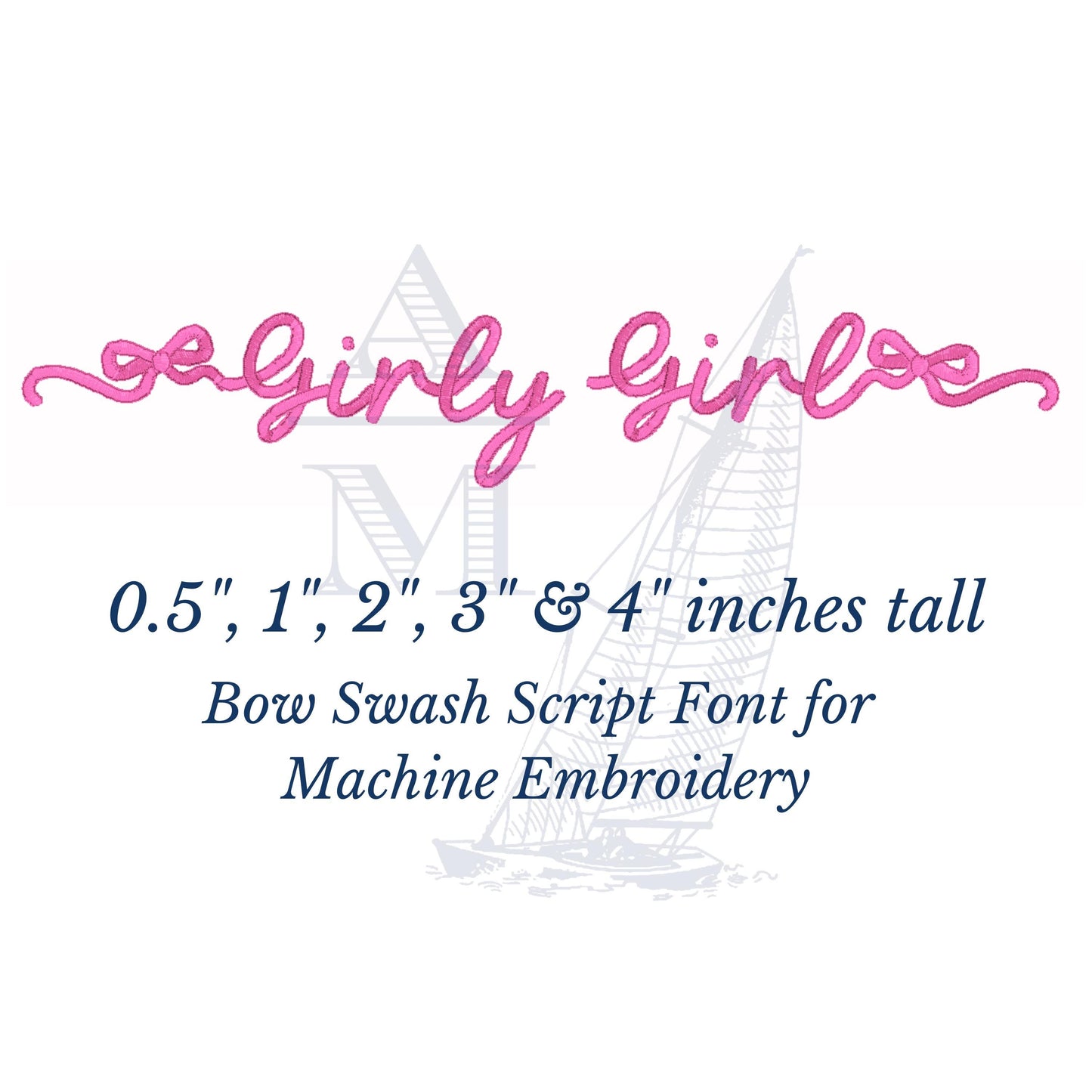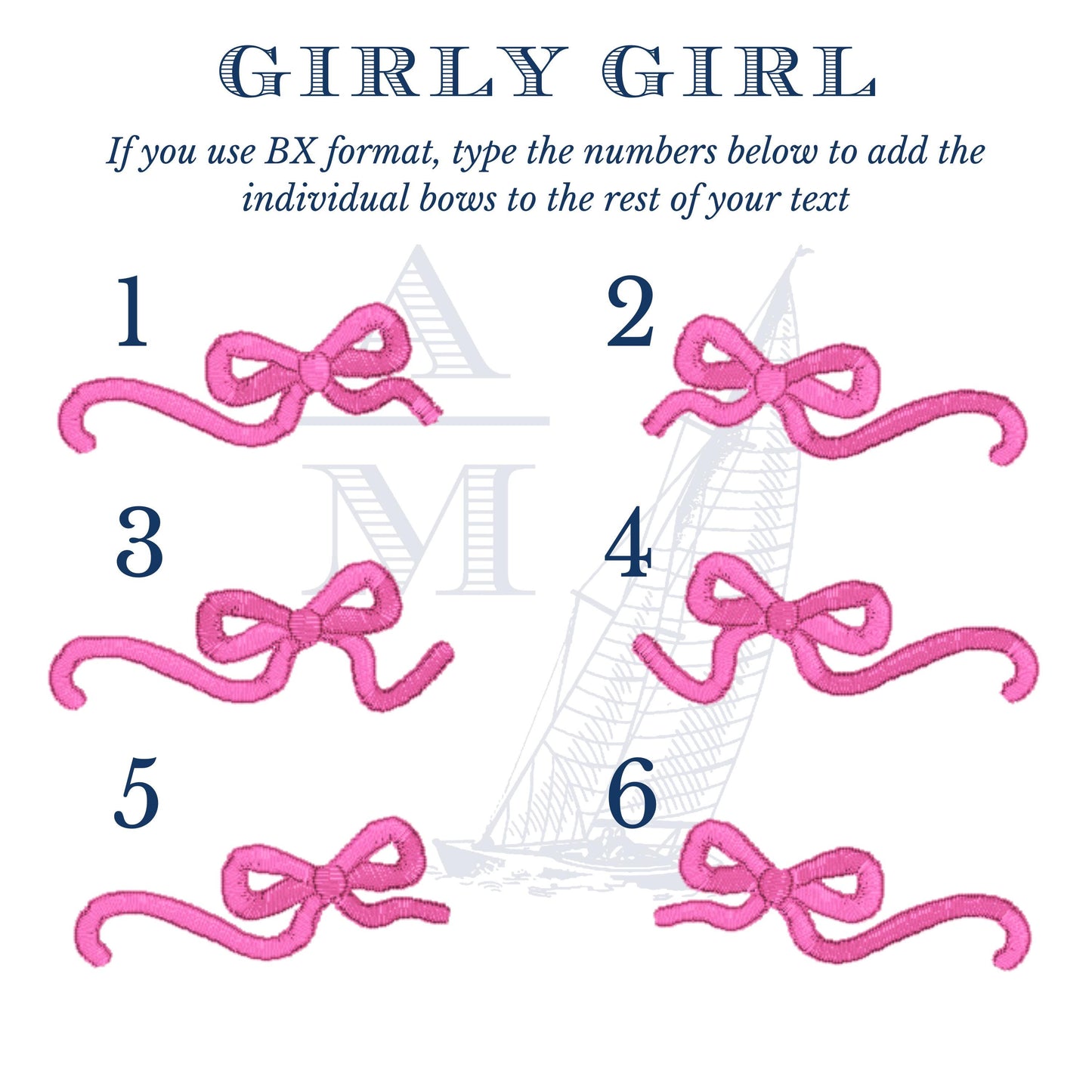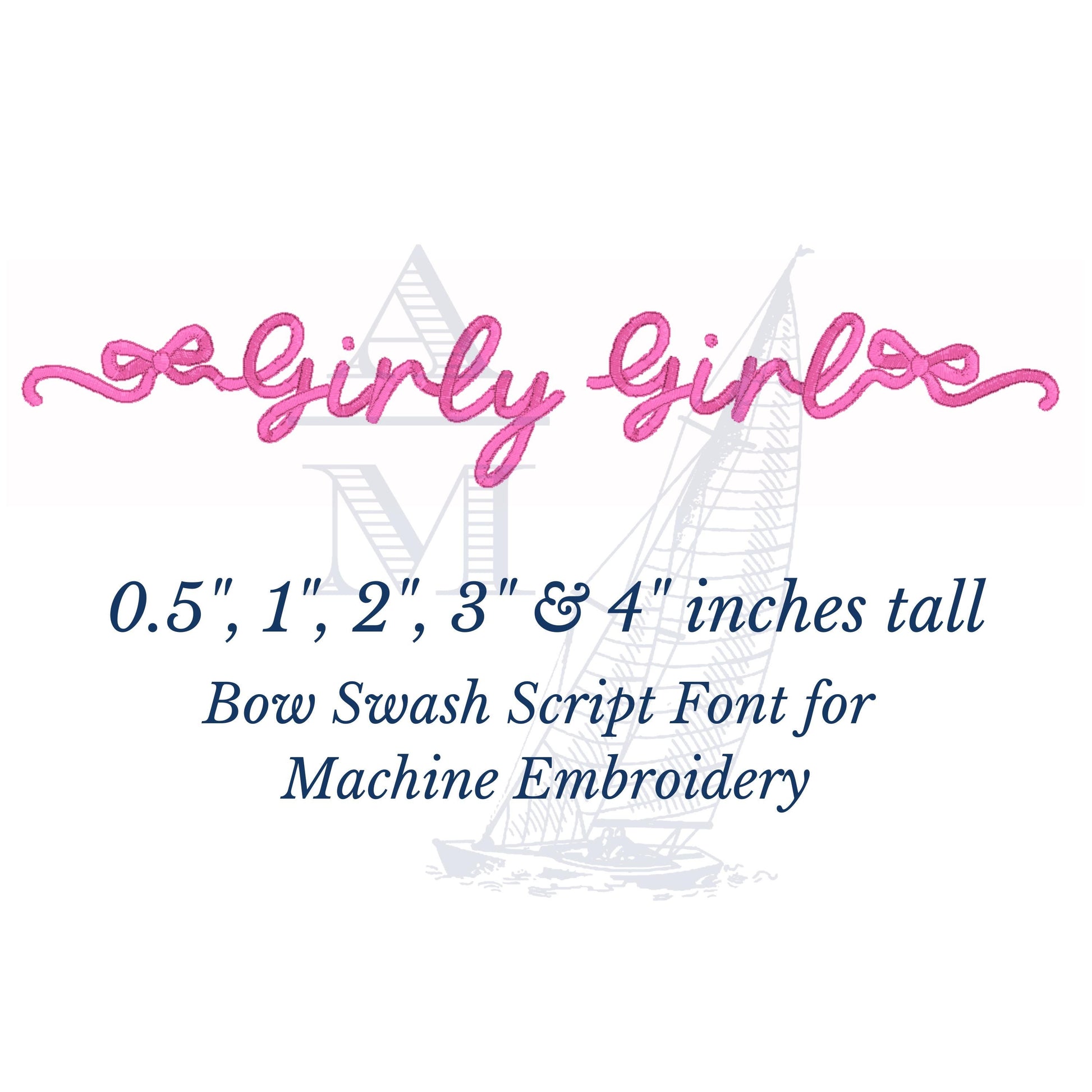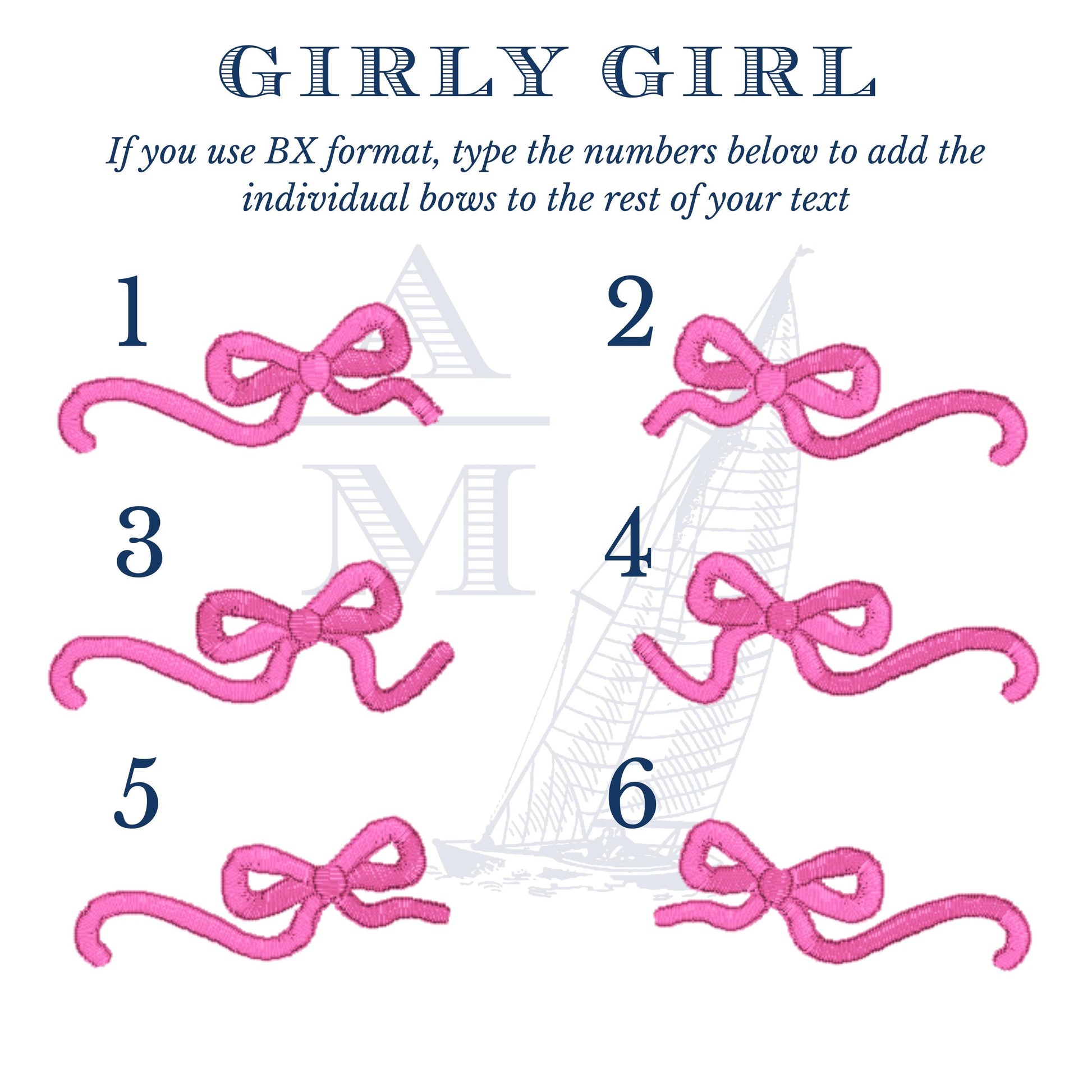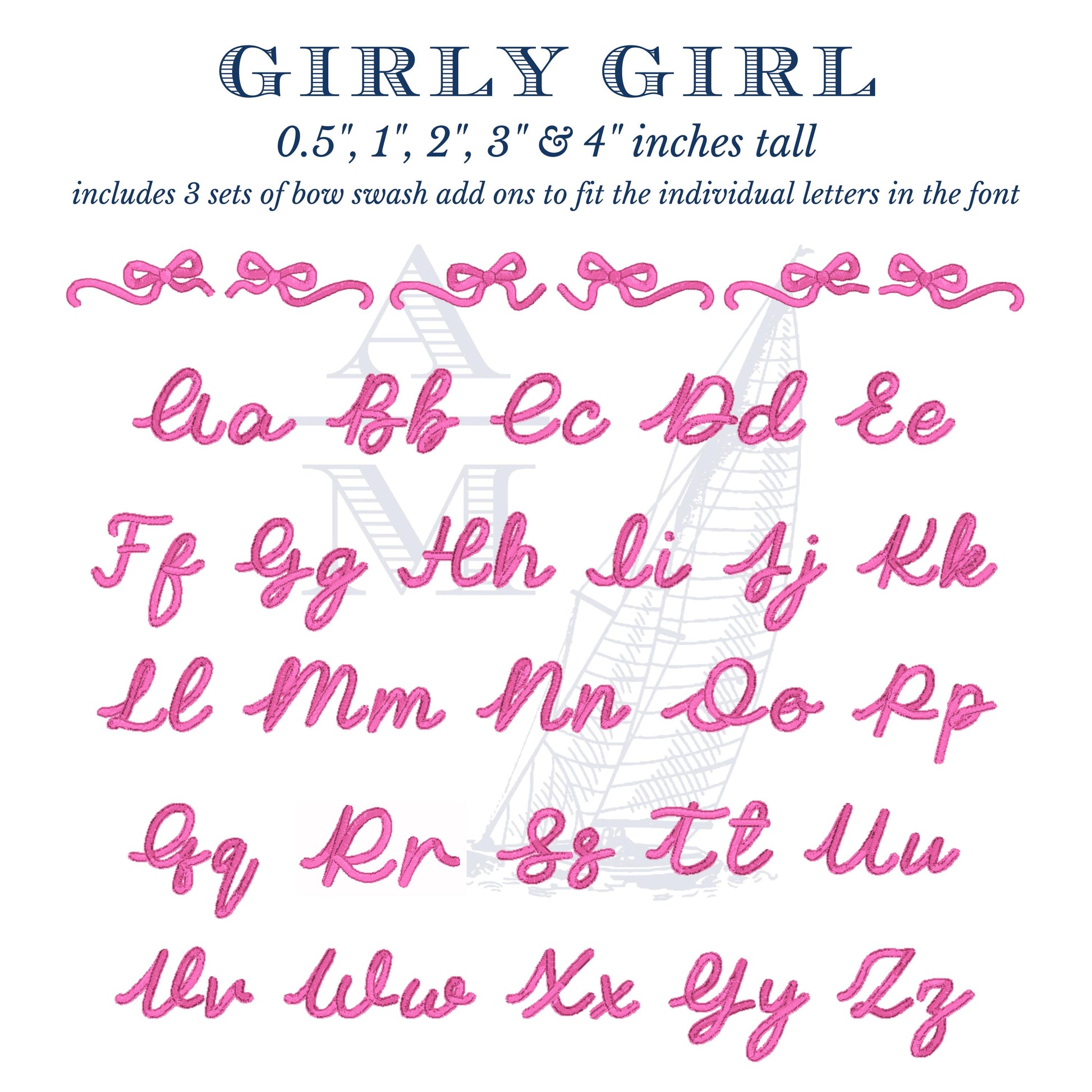
Girly Bow Script Embroidery Font with Satin Finish, BX Included, Machine Embroidery Digital Font File, 5 Sizes
The Girly Girl Bow font by Annapolis Monograms is sure to be a crowd pleaser. This embroidery font contains the full alphabet with upper and lower case letters and 3 different side bow swashes that orient both left and right to allow you to create a smooth and seamless stitch out from end to end. You will use this font over and over!! Add to your collection today.